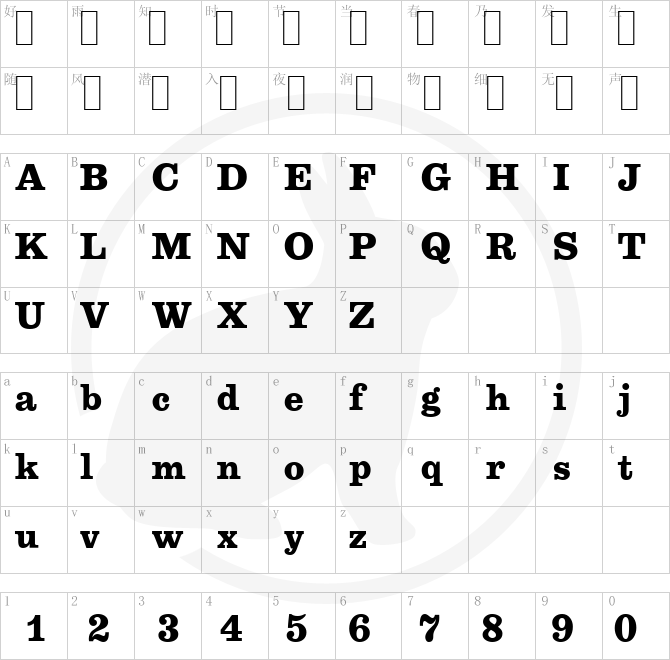
- Font Name:E710-Roman
- Subfamily:SoftMaker Software GmbH E710-Roman-Bold
- Full Name:E710-Roman-Bold
E710-Roman-Bold.ttf is a very beautiful artistic font, E710-Roman-Bold.ttf is widely used in the design and printing of various books and pictures,E710-Roman-Bold.ttf has a strong visual impact,E710-Roman-Bold.ttf is a commonly used font in newspapers, magazines and books, and is used in posters, e-commerce Poster design, store design, logo design, font design and other fields.E710-Roman-Bold.